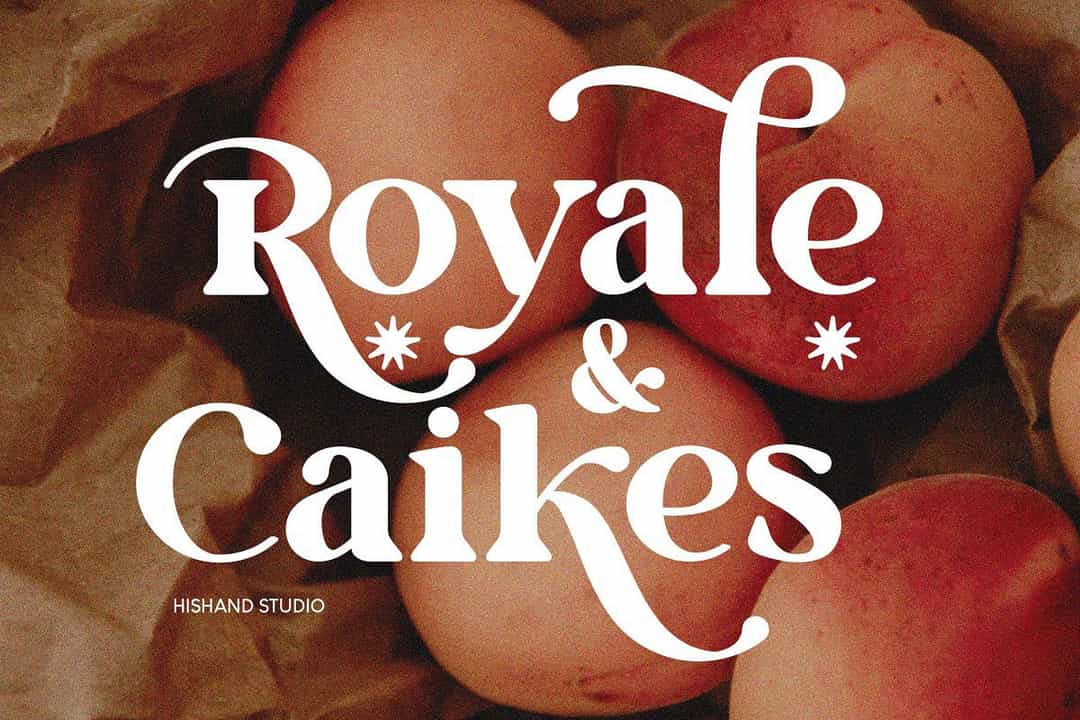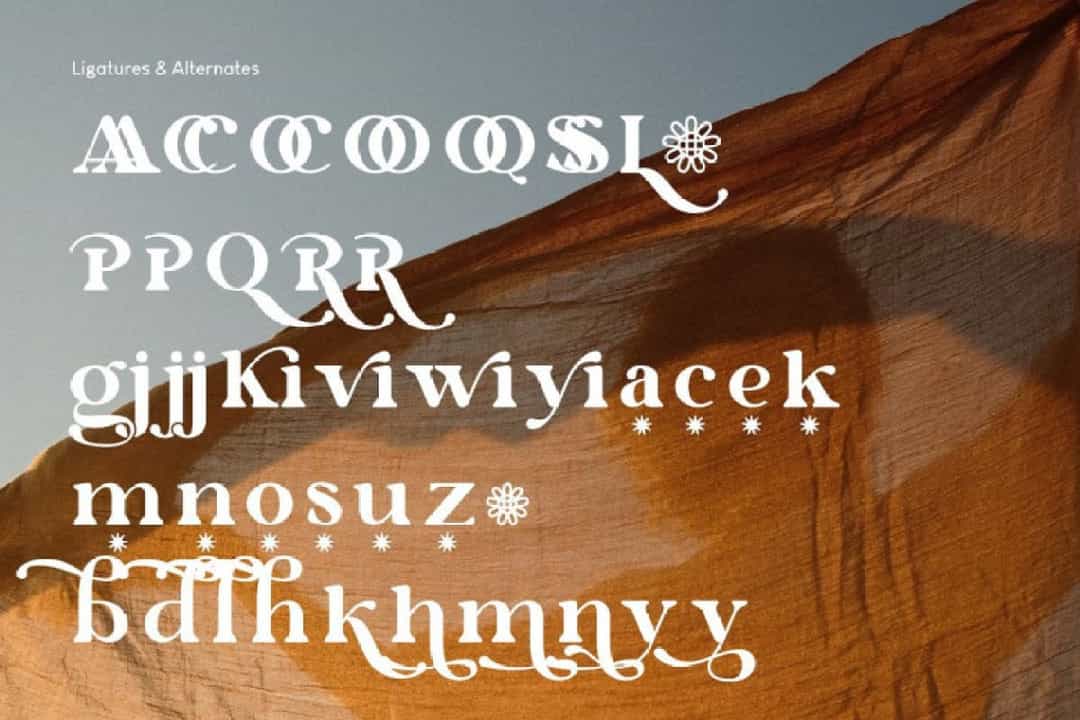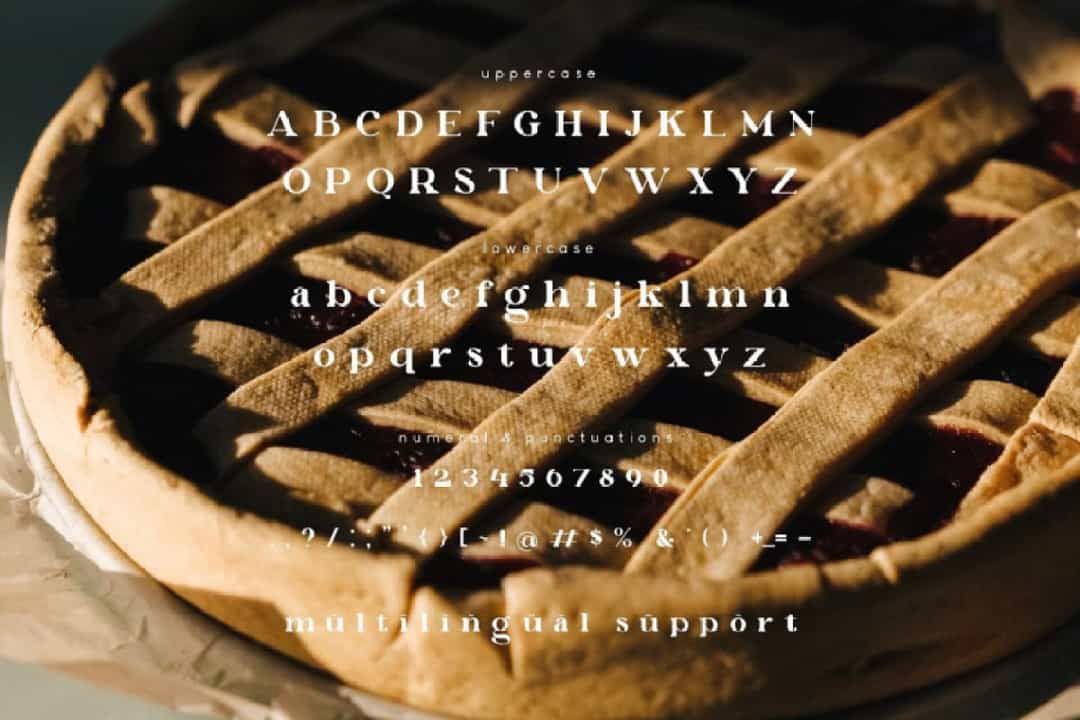
Royale & Caikes is an eye-catching fresh serif font which exudes timeless elegance through its beautiful curves and sophisticated serifs, making it an excellent choice for any design project. Combining classic elements with contemporary influences to produce the ultimate font for creating an air of elegance and luxury in designs of any kind. Royale & Caikes can also be enhanced by an assortment of complementary fonts which complete its effect beautifully.